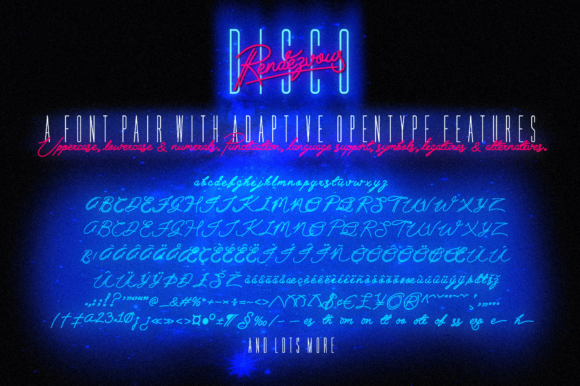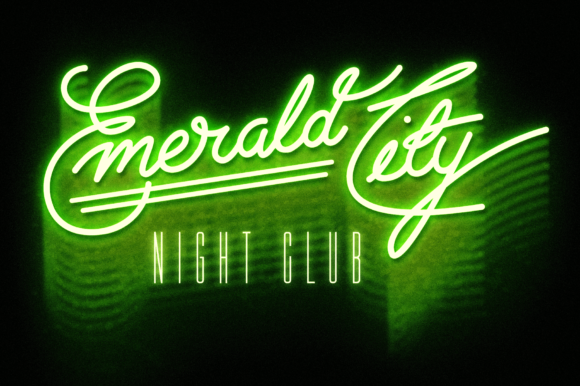
Disco Rendezvous Font
db-ku.com - Script & Handwritten -- Disco Rendezvous is a cool and unique looking duo font (script and display). This font is PUA encoded which means you can access all of the glyphs and swashes with ease!